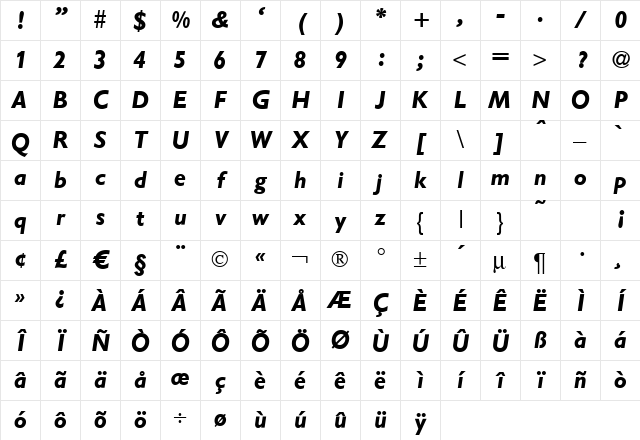
Gibson BoldItalic
Gibson Family
Design Context for Gibson
Gibson is a composed and adaptable typeface that performs quietly and consistently across a wide range of design contexts. The slanted form adds forward momentum and visual energy. Its bold stroke weight gives it real presence on the page.